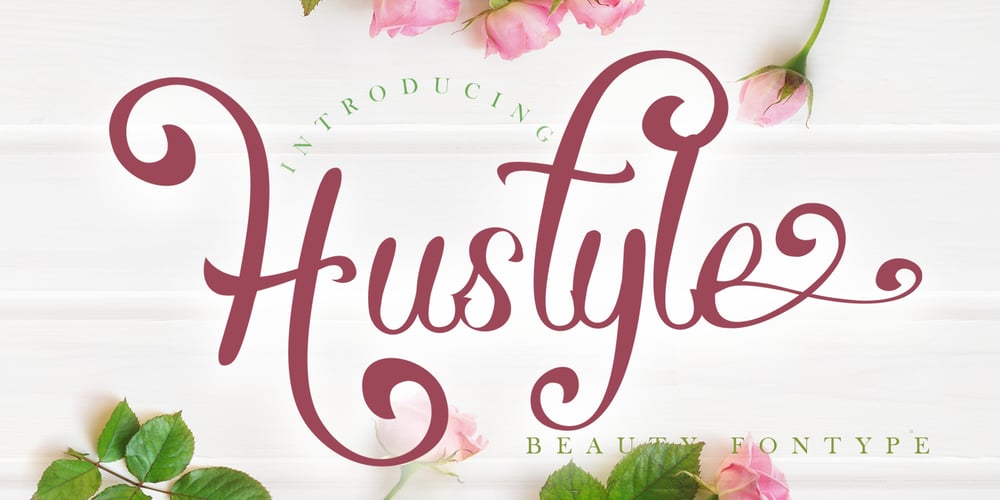
Hustyle
Hustyle font
Hustyle Font Family was designed by Irfan Mahmudin and published by Skiiller Studio. Hustyle contains 1 styles and family package options. Hustyle is a lovely and fun handwritten font. It is great for logos, invitations, posters and much more!